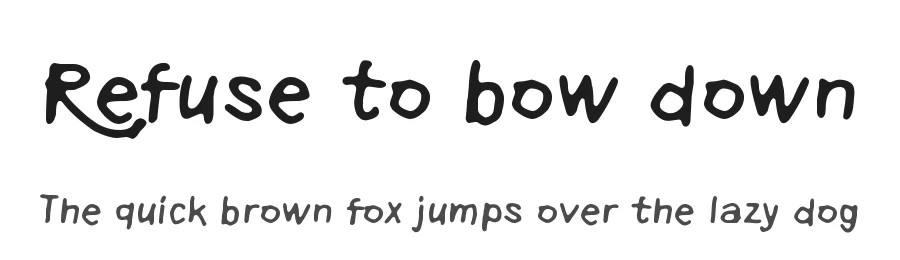
About Querina Handwritten Font
This one will be your fave!
check how flexible this cute font is for many purposes.
from note taking to large display or logo.
Querina Handwritten Specifications
Querina Handwritten Font is a script font that shines as a display or heading face. Pair it with a clean sans-serif or serif font for body text β the contrast creates a clear hierarchy while the two styles stay balanced and easy to read.